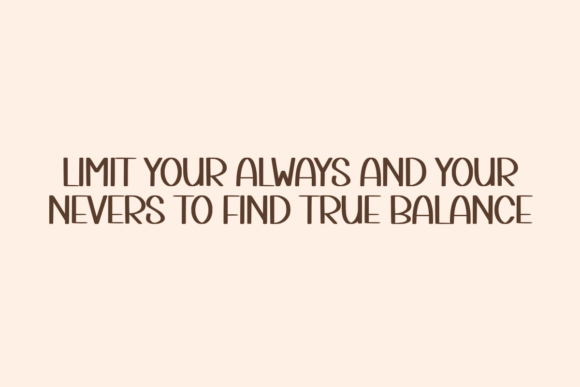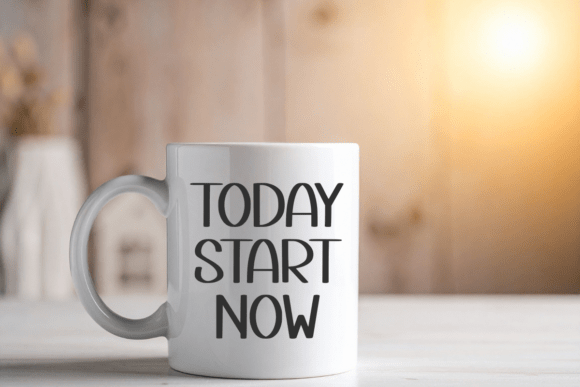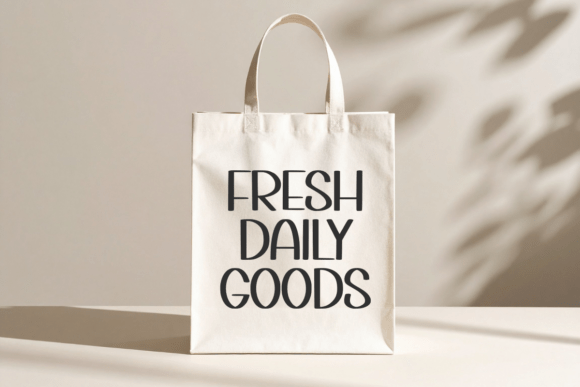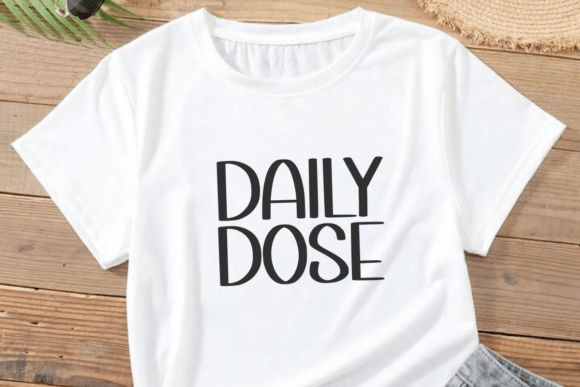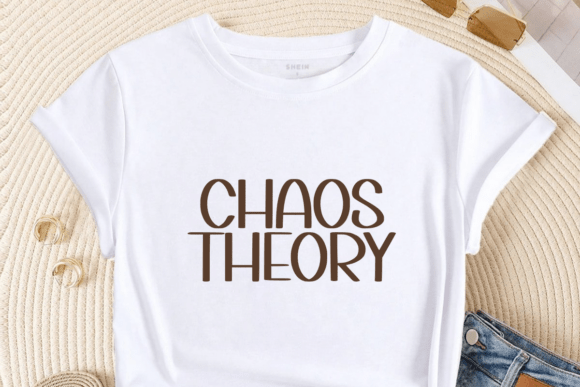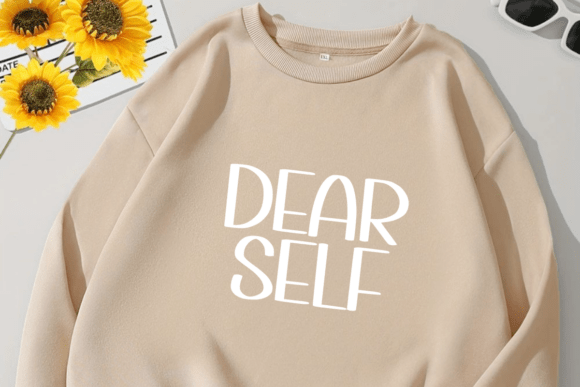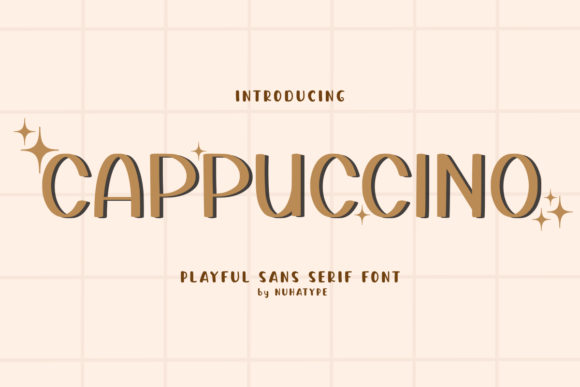
Cappuccino Font: The Perfect Handwritten Style for Crafty Projects
Are you a crafter, designer, or DIY enthusiast looking for a font that can add a personal touch to your projects? Look no further than the Cappuccino font, a cute sans serif handwriting font designed to bring a soft, friendly, and natural look to your creations. In this article, we’ll explore the features and benefits of the Cappuccino font, and how it can elevate your craft projects, planners, stickers, kids’ worksheets, classroom printables, and DIY designs.
What is Cappuccino Font?
Cappuccino is a carefully crafted font that mimics the look of handwritten text, with simple strokes and smooth curves that make it easy to read and visually appealing. Its soft and friendly appearance makes it perfect for a wide range of applications, from kids’ projects to adult-oriented designs. The font’s handcrafted feel is ideal for crafty projects that require a personal touch, such as greeting cards, labels, and coloring pages.
Key Features of Cappuccino Font
• Soft and Friendly Appearance: The Cappuccino font has a warm and inviting look that makes it perfect for designs that require a personal touch.
• Simple Strokes and Smooth Curves: The font’s simple strokes and smooth curves make it easy to cut using Cricut and Silhouette machines, and perfect for crafting moms who love adorable handwritten styles.
• Handcrafted Feel: The Cappuccino font brings a handcrafted feel to your designs, making them look like they were created with love and care.
• Versatile: The font is suitable for a wide range of applications, including craft projects, planners, stickers, kids’ worksheets, classroom printables, and DIY designs.
Uses of Cappuccino Font
The Cappuccino font is a versatile font that can be used for a variety of projects, including:
• Quotes and Greeting Cards: Add a personal touch to your quotes and greeting cards with the Cappuccino font.
• Kids’ Labels and Worksheets: Create fun and engaging kids’ labels and worksheets with the Cappuccino font.
• Coloring Pages and Playful Graphic Projects: Use the Cappuccino font to add a playful touch to your coloring pages and graphic projects.
• Bullet Journals and Scrapbooks: Add a personal touch to your bullet journals and scrapbooks with the Cappuccino font.
Benefits of Using Cappuccino Font
Using the Cappuccino font can bring several benefits to your designs, including:
• Unique and Personalized Look: The Cappuccino font can add a unique and personalized look to your designs, setting them apart from others.
• Easy to Read: The font’s simple strokes and smooth curves make it easy to read, even for young children.
• Time-Saving: The Cappuccino font can save you time and effort, as it’s easy to use and doesn’t require a lot of editing.
• Fun and Engaging: The font’s playful and friendly appearance can make your designs more fun and engaging, perfect for kids’ projects and activities.
Tips for Using Cappuccino Font
Here are some tips for using the Cappuccino font effectively:
• Use it for Headings and Titles: The Cappuccino font is perfect for headings and titles, as it’s bold and eye-catching.
• Mix it with Other Fonts: Experiment with mixing the Cappuccino font with other fonts to create a unique and interesting look.
• Use it for Kids’ Projects: The Cappuccino font is perfect for kids’ projects, such as worksheets, coloring pages, and activity sheets.
• Add a Personal Touch: Use the Cappuccino font to add a personal touch to your designs, such as in greeting cards and quotes.
Font Name Cappuccino Font
In conclusion, the Cappuccino font is a versatile and fun font that can add a personal touch to your craft projects, planners, stickers, kids’ worksheets, classroom printables, and DIY designs. Its soft and friendly appearance, simple strokes, and smooth curves make it easy to read and visually appealing. With its handcrafted feel and unique look, the Cappuccino font is perfect for designers and crafters who want to create unique and engaging designs.